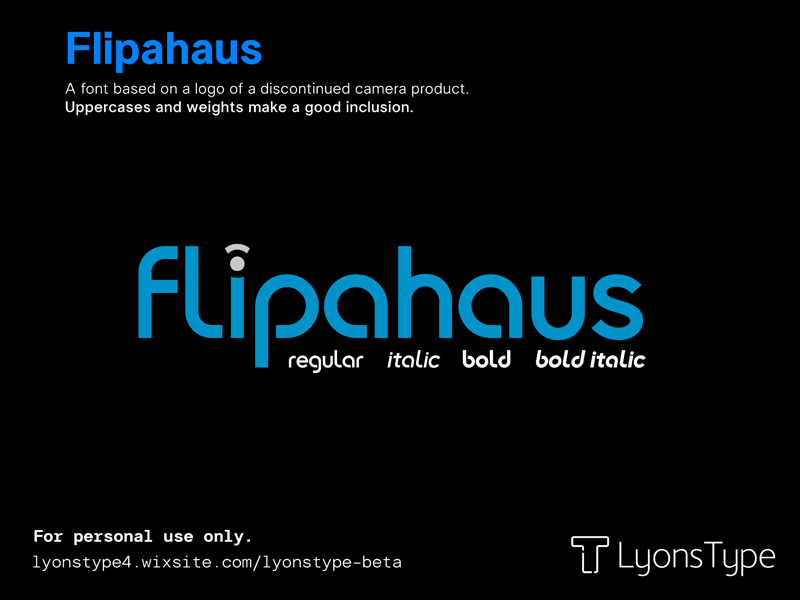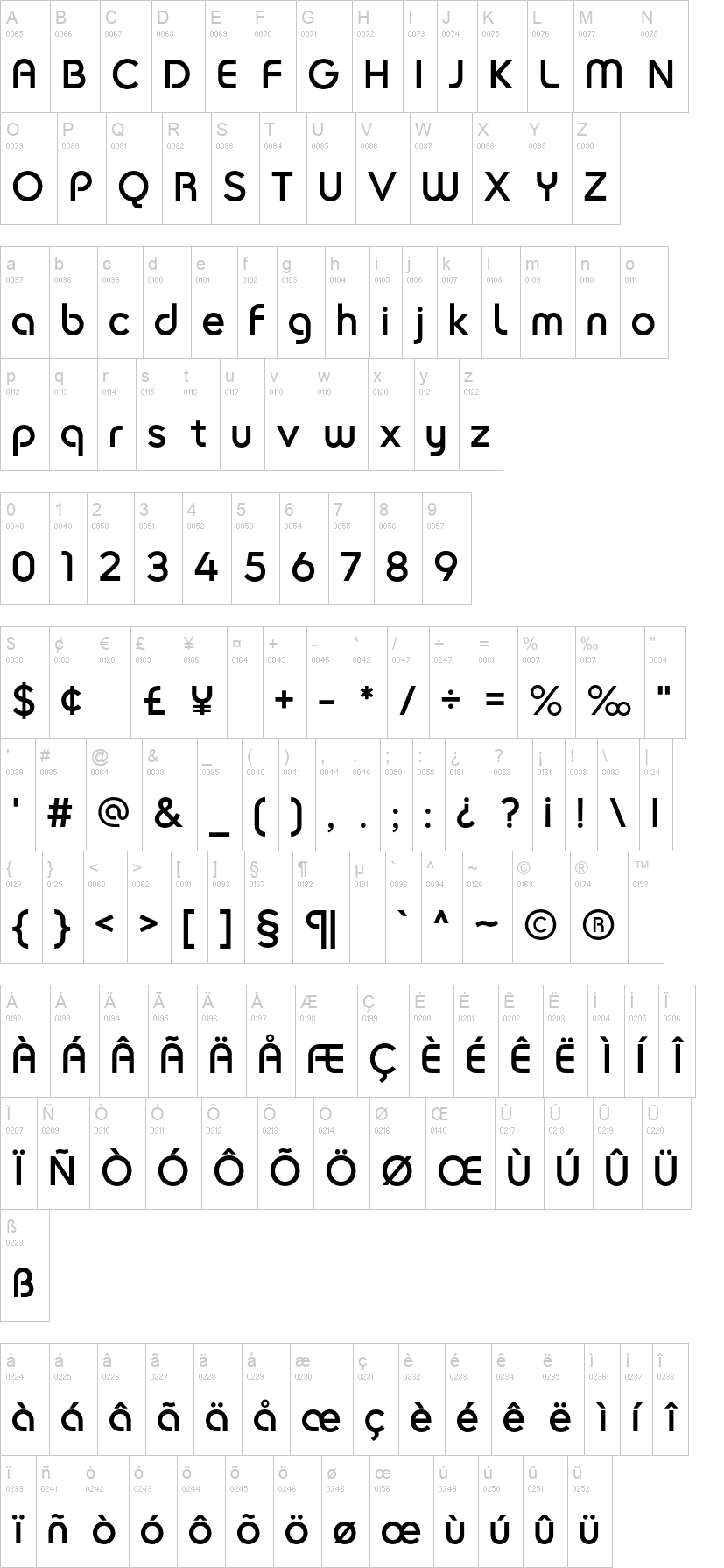
Flipahaus-Italic.otfFlipahaus-Bold.otfFlipahaus-BoldItalic.otfNote of the authorA font based on a logo of a discontinued camera product.
Uppercases and weights make a good inclusion.